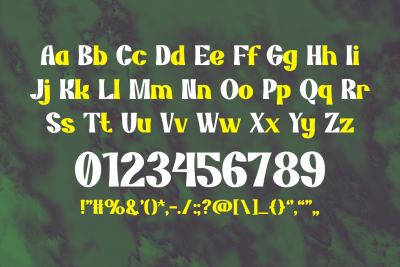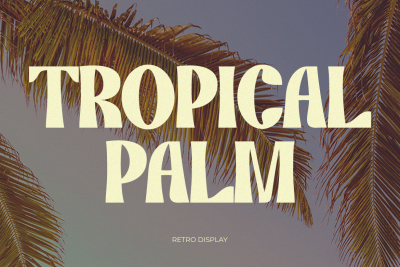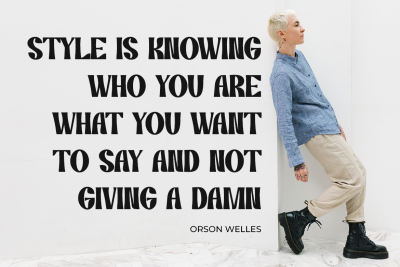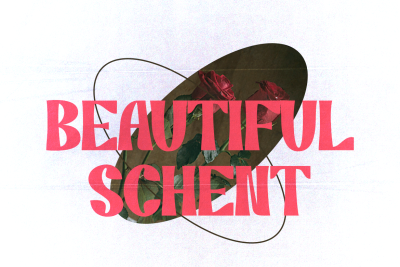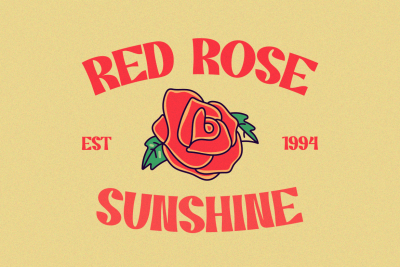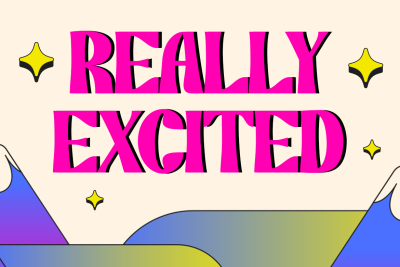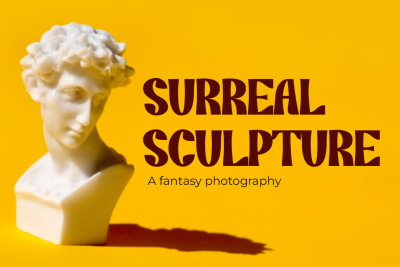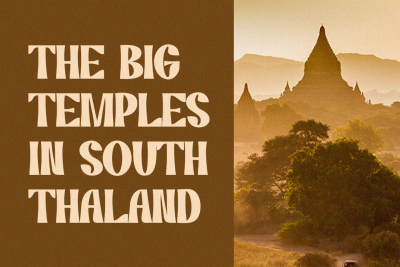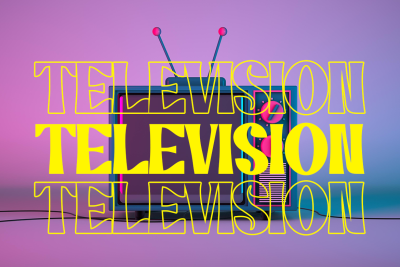
Retro Font Leonard is a bold and stylish typeface that combines vintage charm with a modern aesthetic. It features sharp curves and clean lines, which effortlessly capture the essence of retro design while adding a fresh twist. Therefore, itโs an excellent choice for projects that need to stand out. You can use it for branding, posters, logos, and headlines. Its bold letterforms not only grab attention but also maintain an air of elegance and nostalgia.
Moreover, Leonard reflects careful craftsmanship, balancing sophistication with a playful edge. Although inspired by mid-century design, it feels fresh and versatile enough for modern use. The unique blend of retro shapes and clean lines adapts well to many design styles. Consequently, it allows you to create both bold and expressive visuals or sleek and minimalistic ones. Whether your work involves digital or print designs, Leonard guarantees a strong and lasting impression.
Additionally, the typeface includes stylistic variations and alternates, making it highly customizable. These features give you the freedom to tailor Leonard to your specific creative vision. As a result, your designs remain unique and visually captivating.
Retro Font Leonard Perfect For
Retro Font Leonard is ideal for graphic designers and branding professionals. In particular, it suits industries like entertainment, fashion, and hospitality, where bold typography is essential for building memorable brands. For instance, you can use Leonard for event posters, product packaging, apparel designs, or magazine covers.
Furthermore, independent creators will find Leonard valuable for personal projects. It works beautifully for wedding invitations, custom merchandise
, or social media graphics. Its nostalgic yet modern appeal resonates with trendy designs, making it an excellent fit for brands aiming to connect with retro-modern audiences. Additionally, Leonard’s ability to evoke both energy and sophistication ensures it remains versatile across a wide range of applications.
Whether you are crafting a boutique logo, designing an indie album cover, or creating promotional materials, Retro Font Leonard equips you with the tools to elevate your work. Ultimately, it helps you captivate your audience while setting your designs apart from the competition.